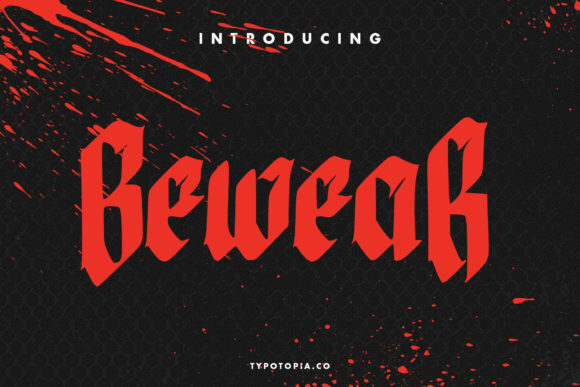
In a universe brimming with digital texts, there exists a remarkable font, a typographic marvel that captivates hearts and minds—Bewear Font. Rooted in the rich tradition of blackletter script, Bewear Font exudes elegance, authenticity, and a dramatic flair that will undoubtedly elevate your designs to new heights.
Embark on a typographic adventure with Bewear Font, a creation of Typotopia's masterminds, where strength and beauty effortlessly coexist. Each letterform, meticulously crafted with precision, speaks volumes, demanding attention and injecting personality into every design. Discover the power of this blackletter gem, and let your words take center stage.
Unleash your creativity with Bewear Font, a versatile companion for an array of projects. Its striking presence commands attention on magazine covers, adding a touch of mystery and allure. Transport your readers to a bygone era with its medieval charm, or create eye-catching headlines that leave a lasting impression.
Transform your digital spaces with Bewear Font, a visual symphony that captivates audiences. Its bold, assertive strokes dance across the screen, drawing eyes and igniting imaginations. Whether it's a social media campaign, a website design, or a captivating poster, Bewear Font will undoubtedly leave an indelible mark.
Experience the magic of Bewear Font, a font that sparks conversations and ignites passion. Its timeless appeal transcends trends, ensuring your designs remain relevant and captivating years to come. Embrace the power of this blackletter masterpiece and watch as your creative vision comes to life.